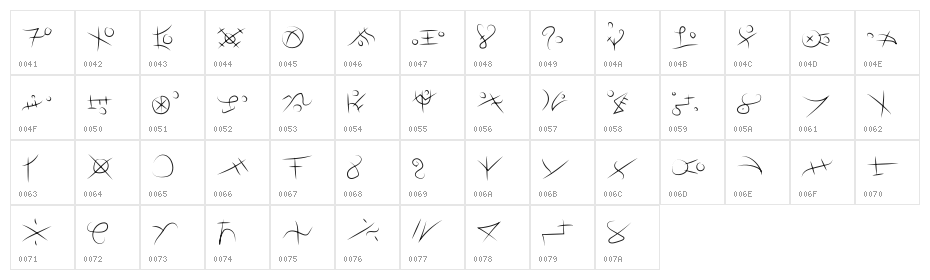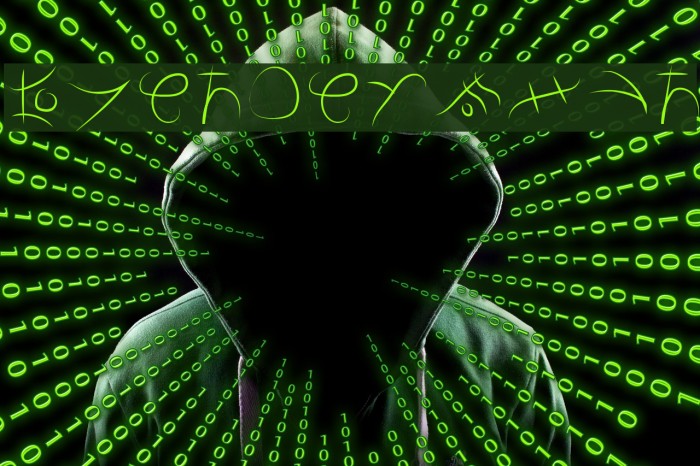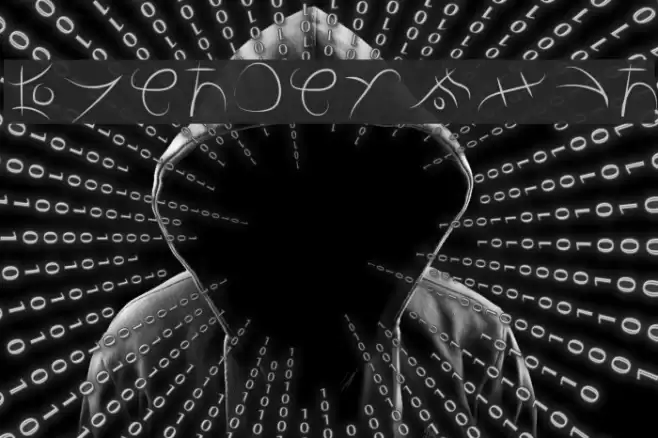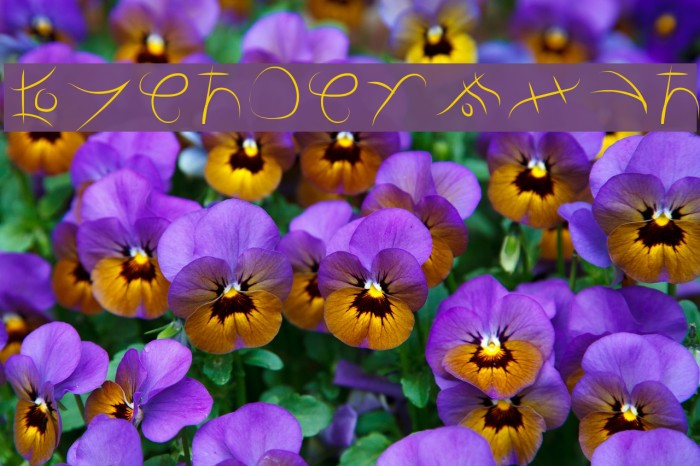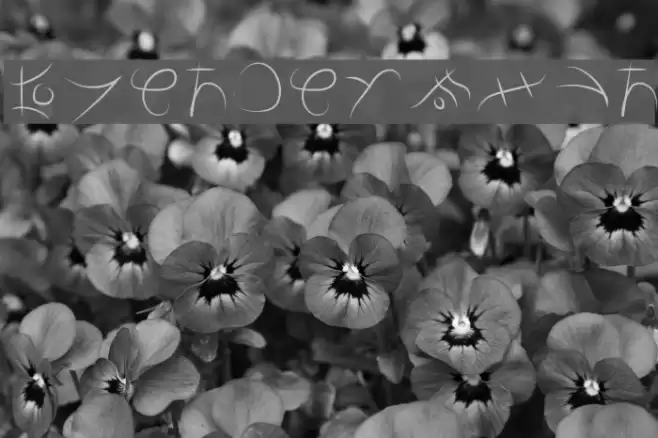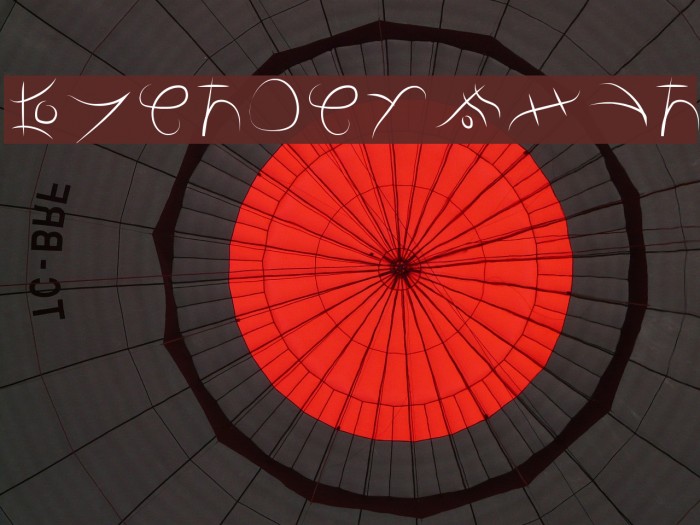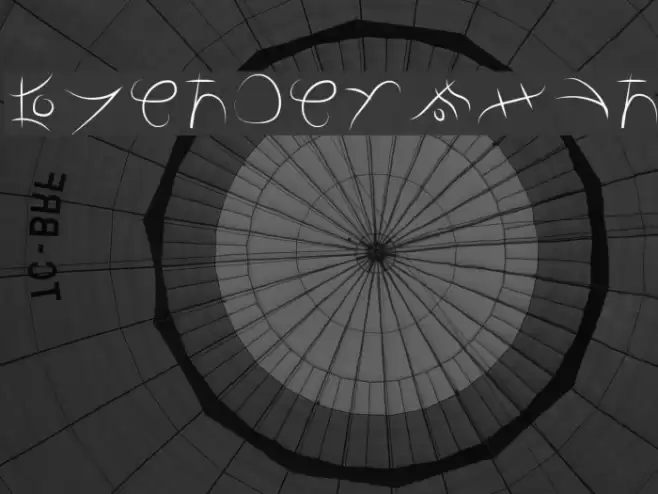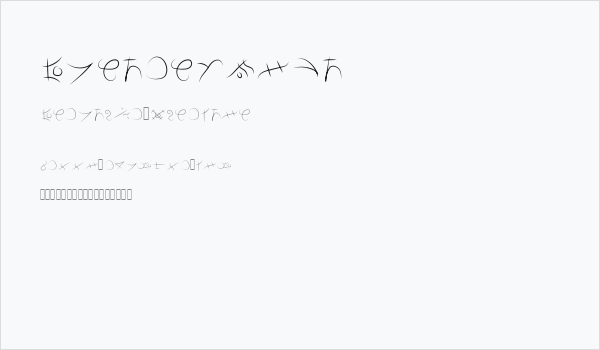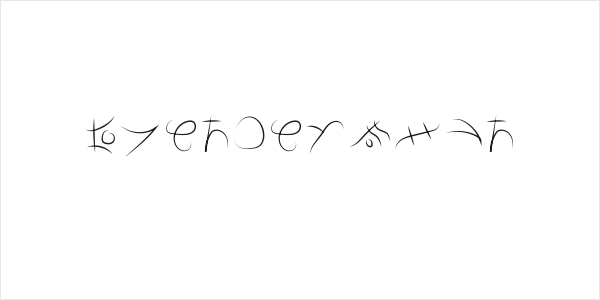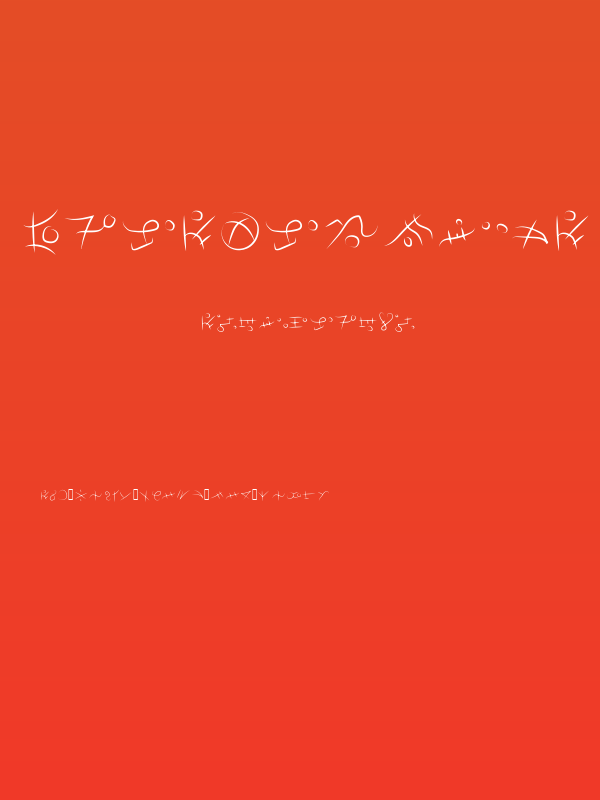
This font features an abstract and artistic design, characterized by its unique and intricate symbols that resemble a blend of calligraphy and modern art. The characters are composed of thin, flowing lines with occasional geometric shapes, creating a sense of movement and fluidity. Each symbol is distinct, with varying degrees of complexity, making it ideal for creative and unconventional projects. The overall aesthetic is whimsical and avant-garde, appealing to those looking for a font that stands out with its artistic flair.
| Overall Style | Avant-garde, Artistic |
| Use Case | Logos, Artistic projects, Decorative elements |
| Proposed Projects | Ideal for artistic projects, creative branding, unique invitations, or decorative posters. |